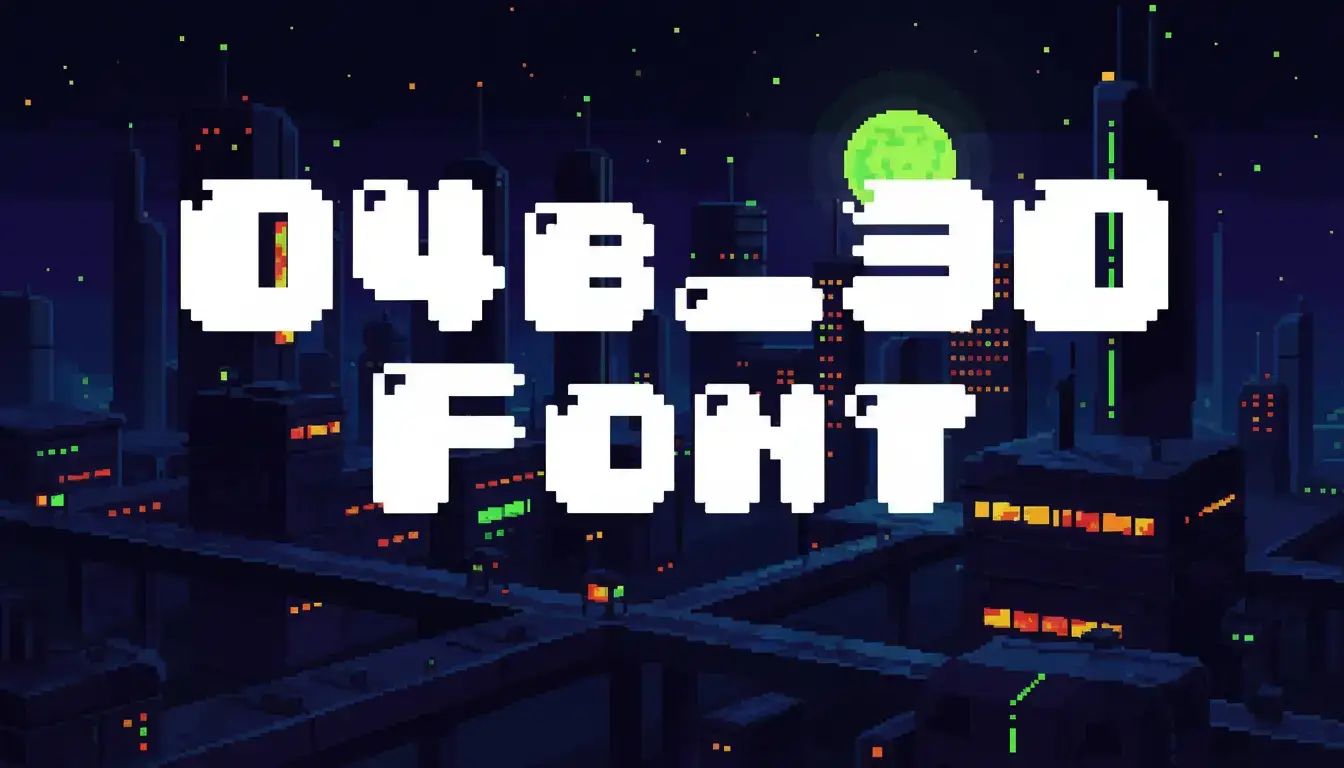
04b_30 Font
04b_30 is a bitmap pixel font. Every letter is built from square pixels, just like text in old video games and early computers. It's a free download, and you can try it with your own text in the preview above first.
- Category: Bitmap pixel font
What You Can Type With 04b_30
You get every letter from A to Z in both cases and all the numbers from 0 to 9, which means 04b_30 can handle full sentences, dates and prices. Everyday marks like &, !, ? and @ are there too. There are no accented letters like é or ñ, so it's best kept to English text.
Where 04b_30 Works Best
Designers usually reach for fonts like 04b_30 when they're making retro game titles, pixel art and 8-bit posters. Pixel fonts look sharpest at sizes that match their grid. If the edges look blurry, nudge the size up or down until they snap into place.
Does 04b_30 support accented letters?
No. 04b_30 has no accented letters such as é, ñ or ü, so it's best for English text.
What fonts pair well with 04b_30?
For longer text, a simple monospace font keeps the retro mood without tiring your readers.